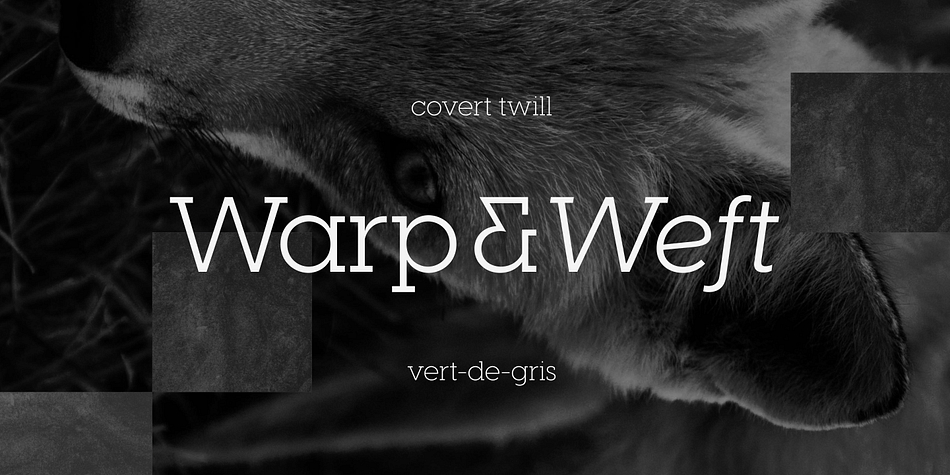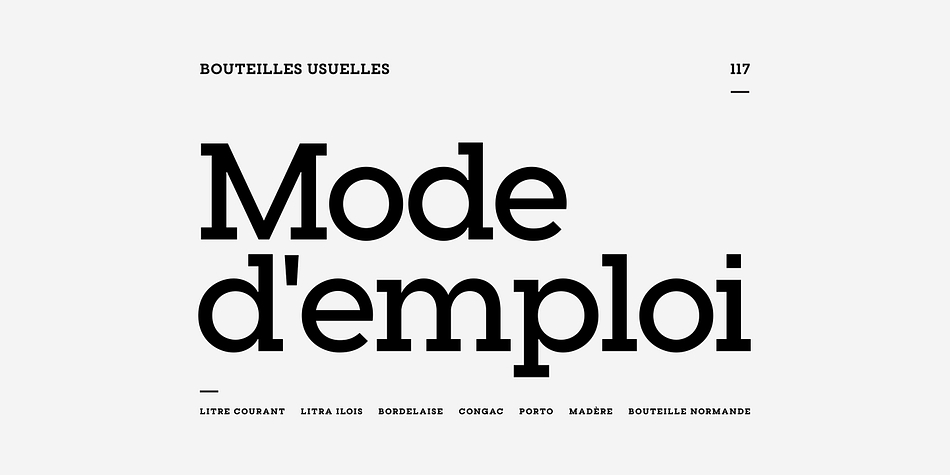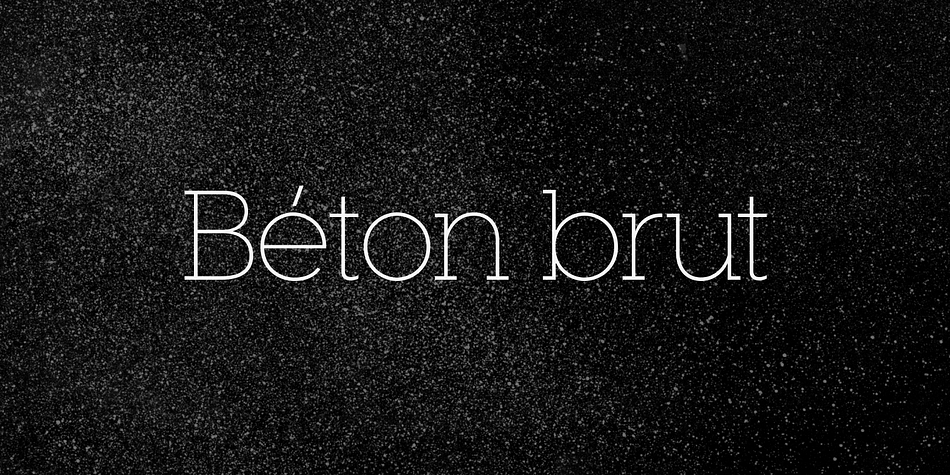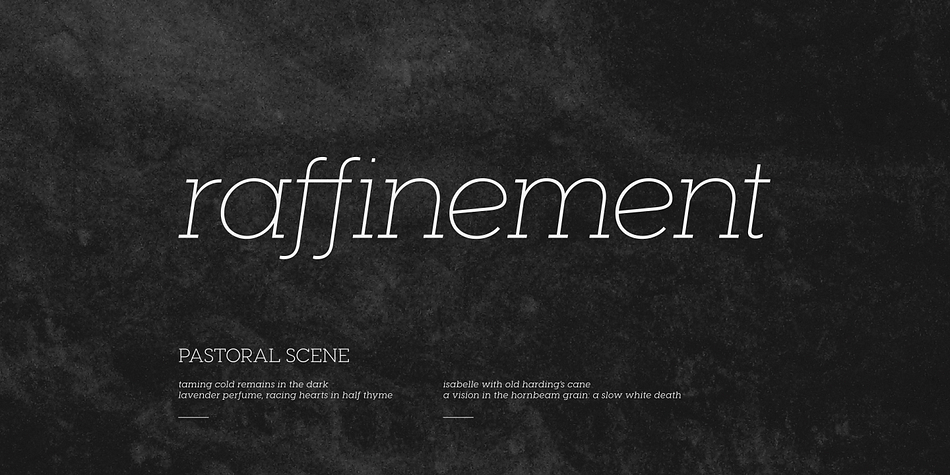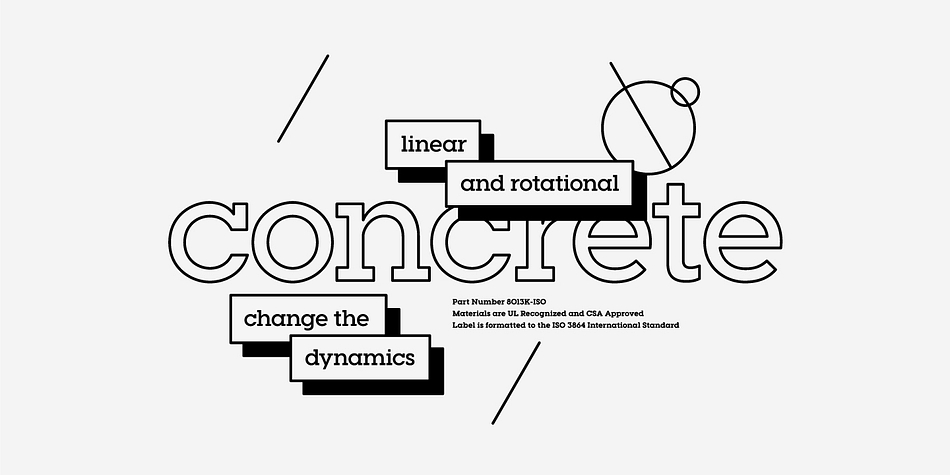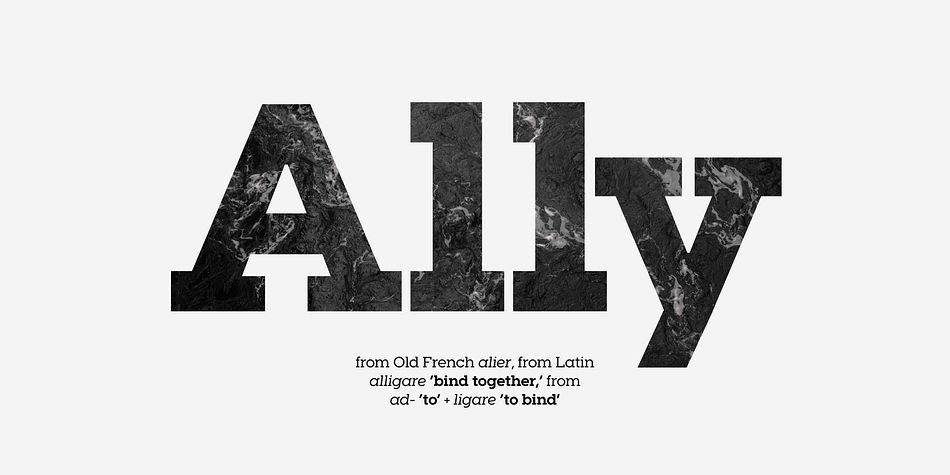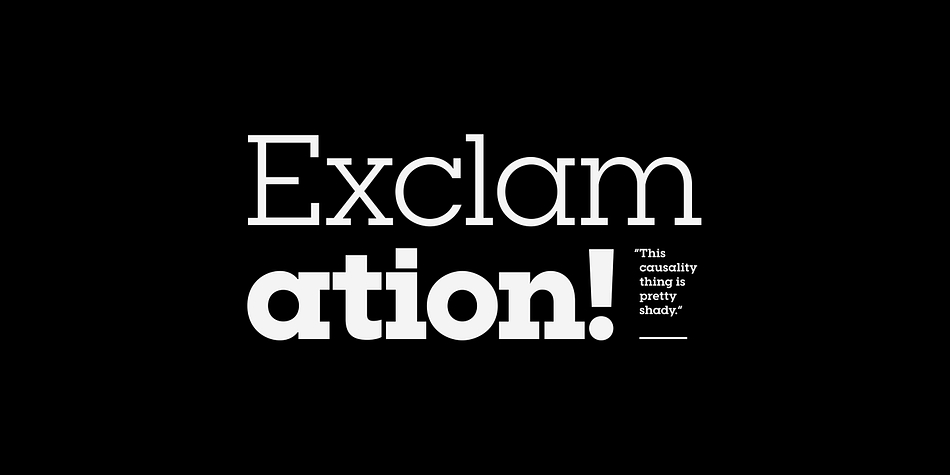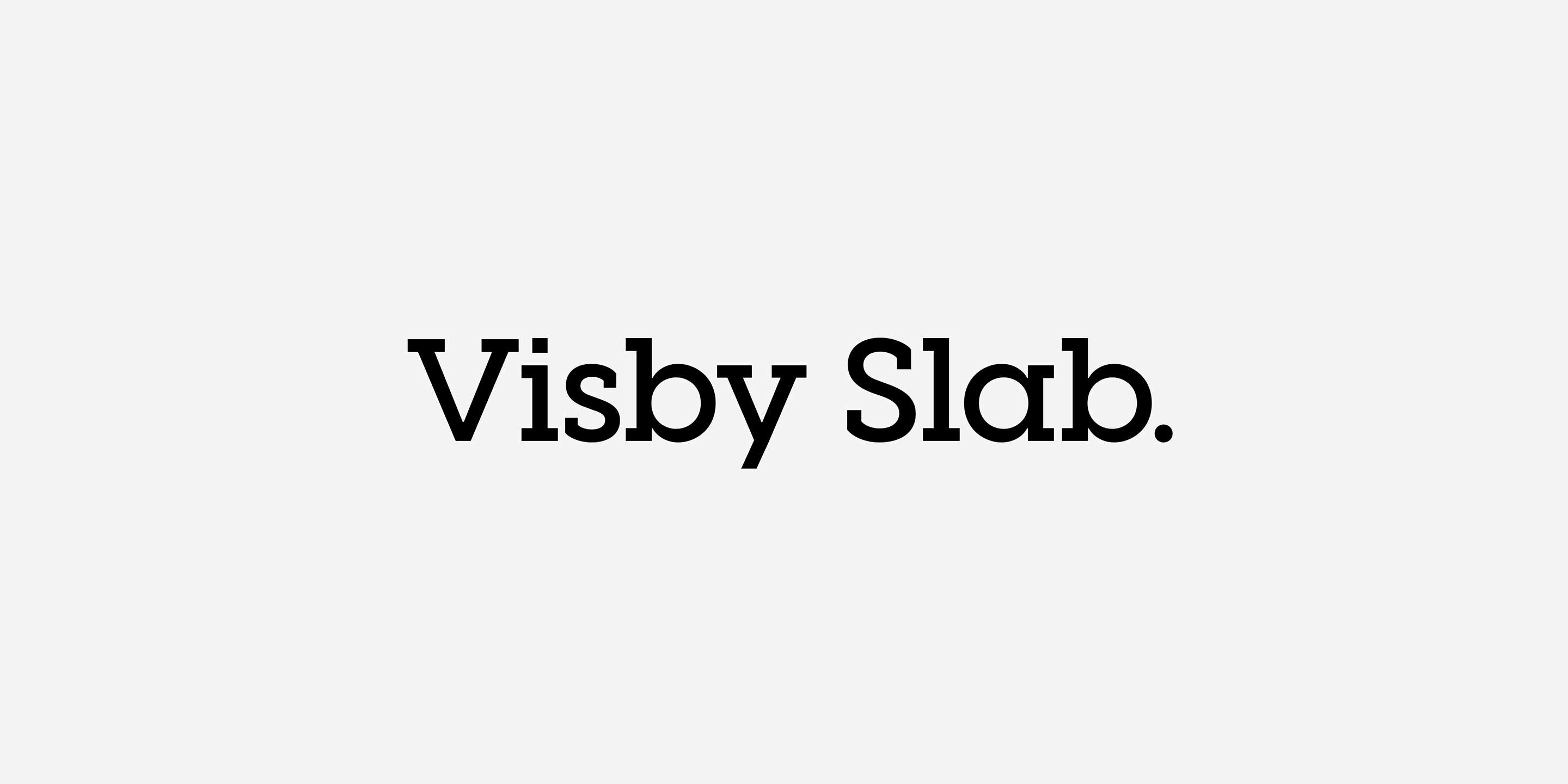
Designed by Connary Fagen, Visby Slab CF is a slab serif font family. This typeface has sixteen styles and was published by Connary Fagen Type Design.
Visby Slab is a geometric slab serif built on the popular Visby font family. Fun to use and expressive, Visby Slab is vibrant and strong in all of its eight weights, and features true italics and generous language support. Excellent for headlines, captions, and just about everything in between.